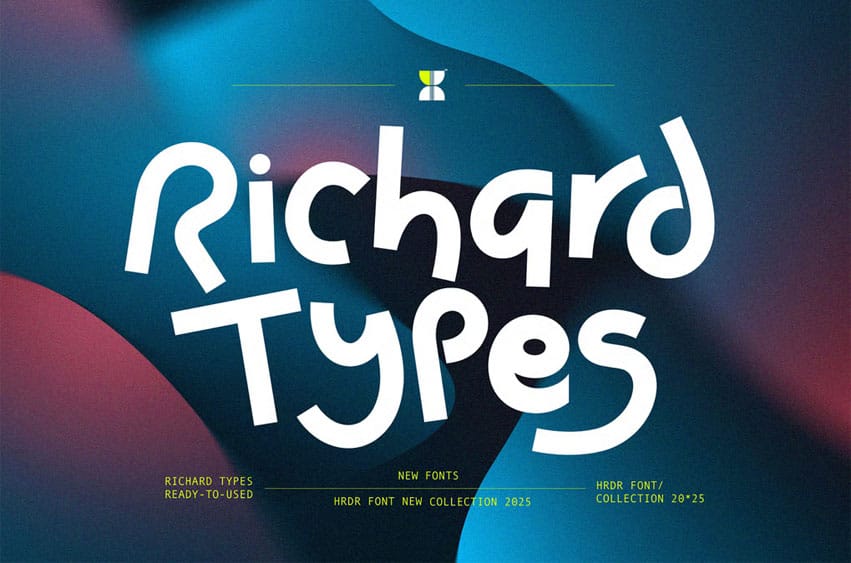
Richard Types Font is a new modern decorative and uniqe font. Perfect for logo, branding , film, motion graphic, logotype, flyer, packaging and more. This font brings a strong feel yet elegant look that you can use for many purposes.
- numeric & Multilingual support
- Stylistic Alternates with Ss01